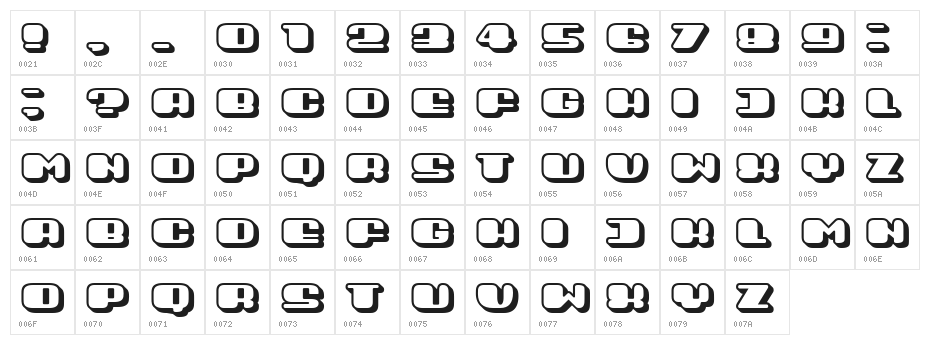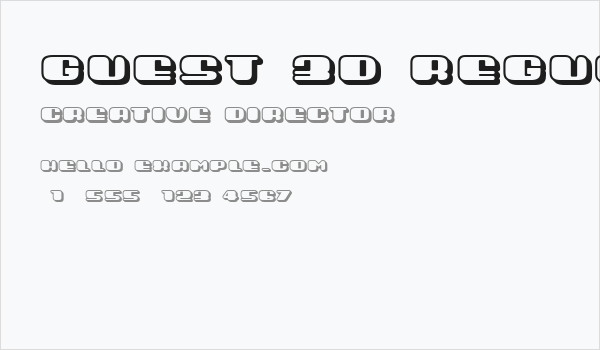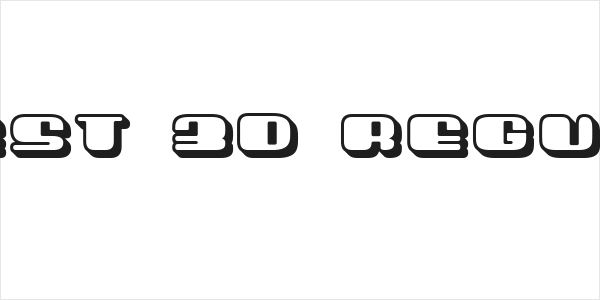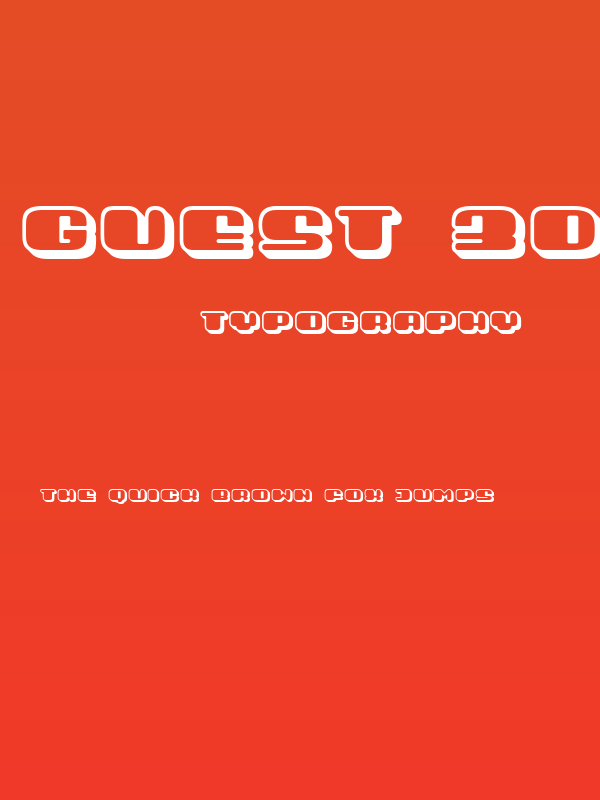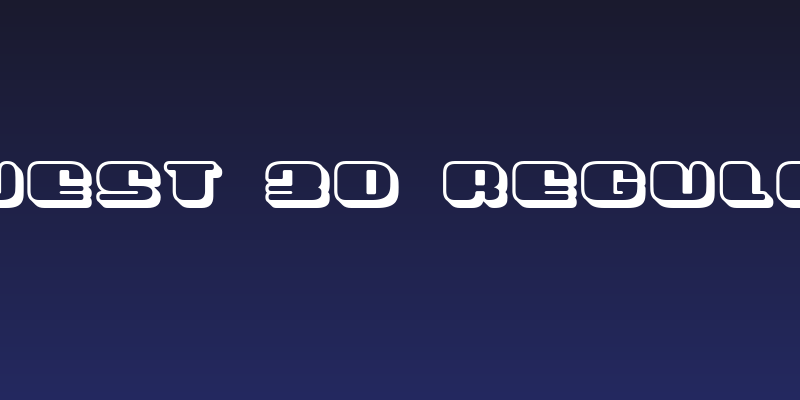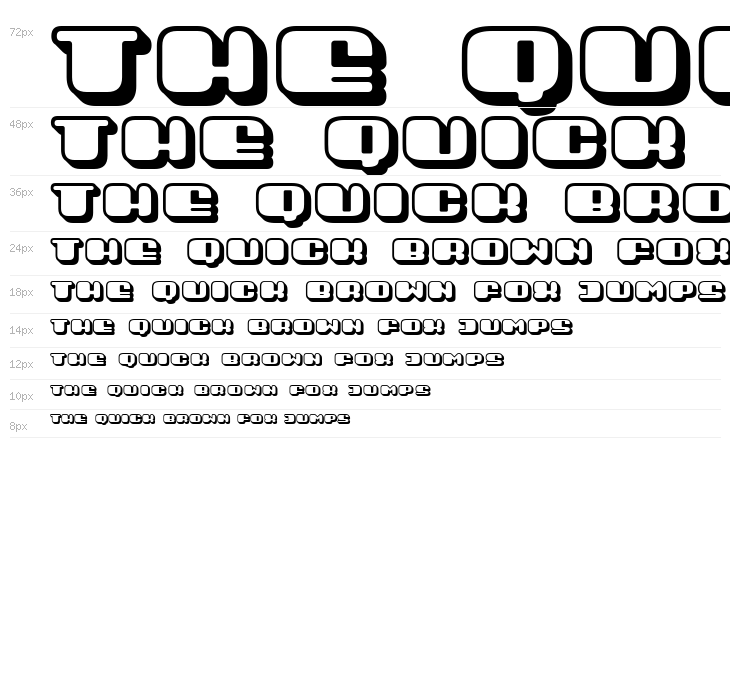
Guest 3D Regular Font
Guest 3D Regular Description
This font features a bold, three-dimensional style with a distinct outline that gives each character a shadow effect. The letters are uppercase and have a playful, chunky appearance, making them stand out with a strong visual impact. The rounded edges and uniform thickness contribute to a modern, futuristic look. The numbers and special characters follow the same design principles, ensuring consistency across all elements. This font is ideal for projects that require a bold statement and a touch of creativity.
| Proposed Projects | Ideal for posters, video game graphics, logos, and any design needing a bold, eye-catching typeface. |